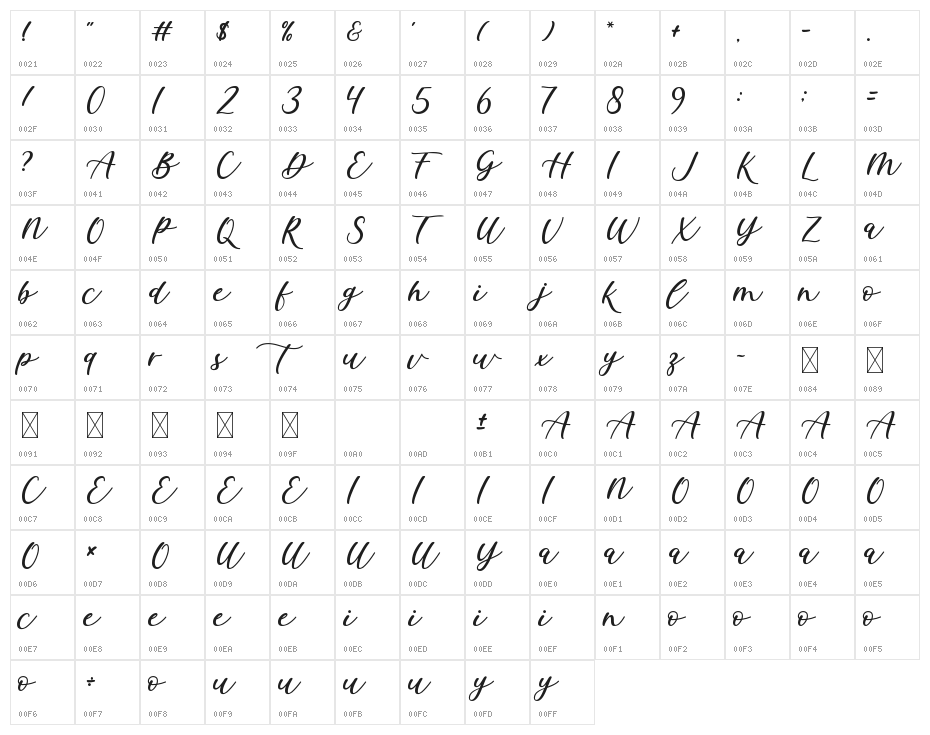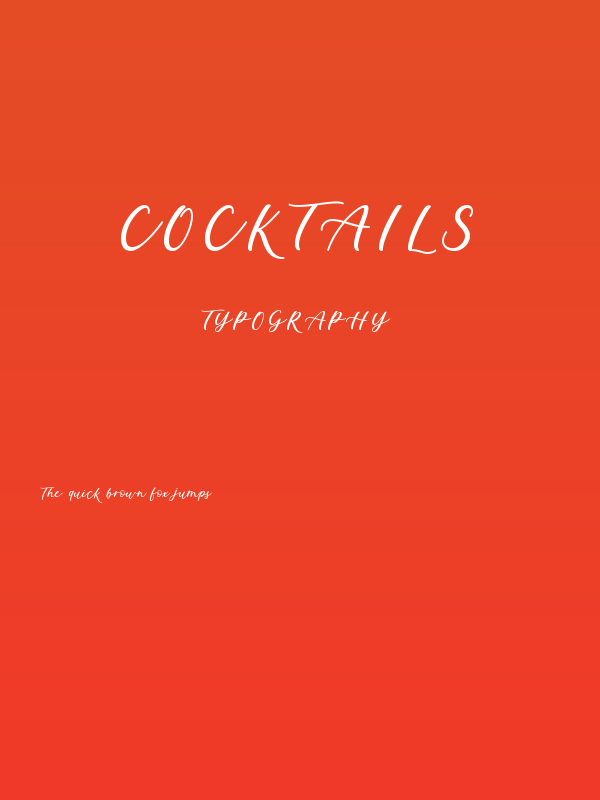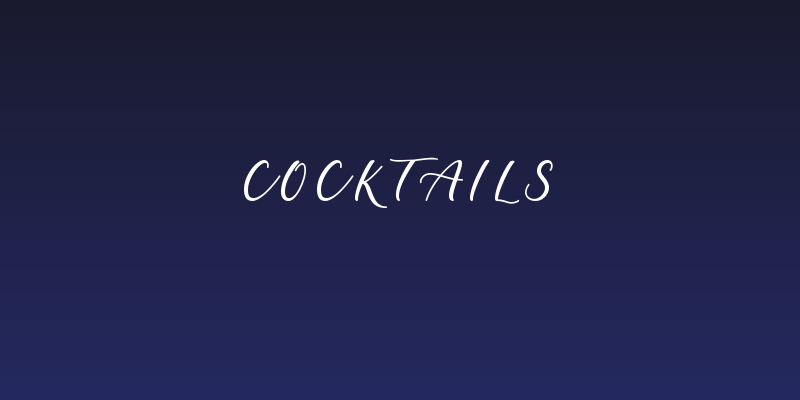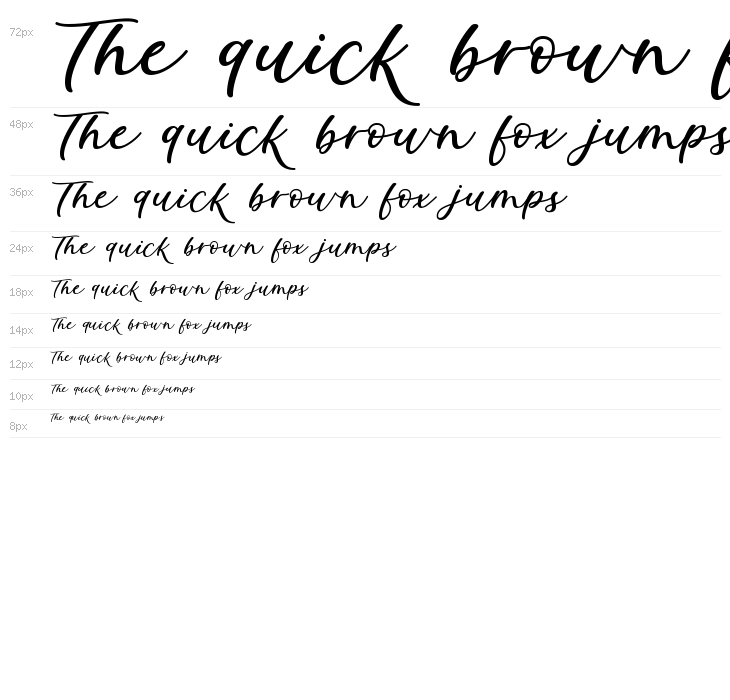
Cocktails Font
Cocktails Description
This font exudes a lively and elegant script style, characterized by its flowing, cursive letterforms that mimic the fluidity of handwriting. The uppercase letters are slightly more structured, maintaining a balance between formality and playfulness, while the lowercase letters exhibit a graceful, sweeping motion. The numerals are consistent with the overall style, offering a harmonious blend of curves and lines. Special characters are thoughtfully designed to complement the alphabet, enhancing the font's versatility. The strokes vary in thickness, adding a dynamic and engaging visual rhythm. This font is perfect for projects that require a touch of sophistication and charm.
Overall StyleElegant, Playful
Use CaseLogos, Invitations, Social Media
Proposed ProjectsIdeal for wedding invitations, greeting cards, branding, and social media graphics.